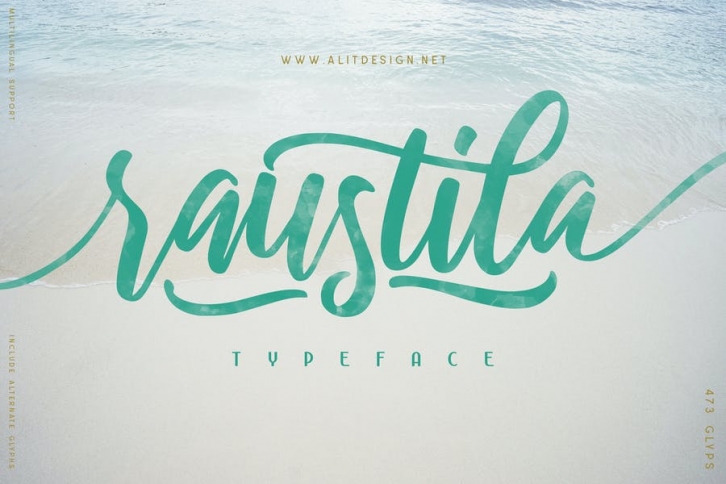
Rausitla font brush script
Raustila this very beautiful font is very worthy of being a collection for your future design. It is suitable for wedding designs, crafts, text headers, logotype and others.